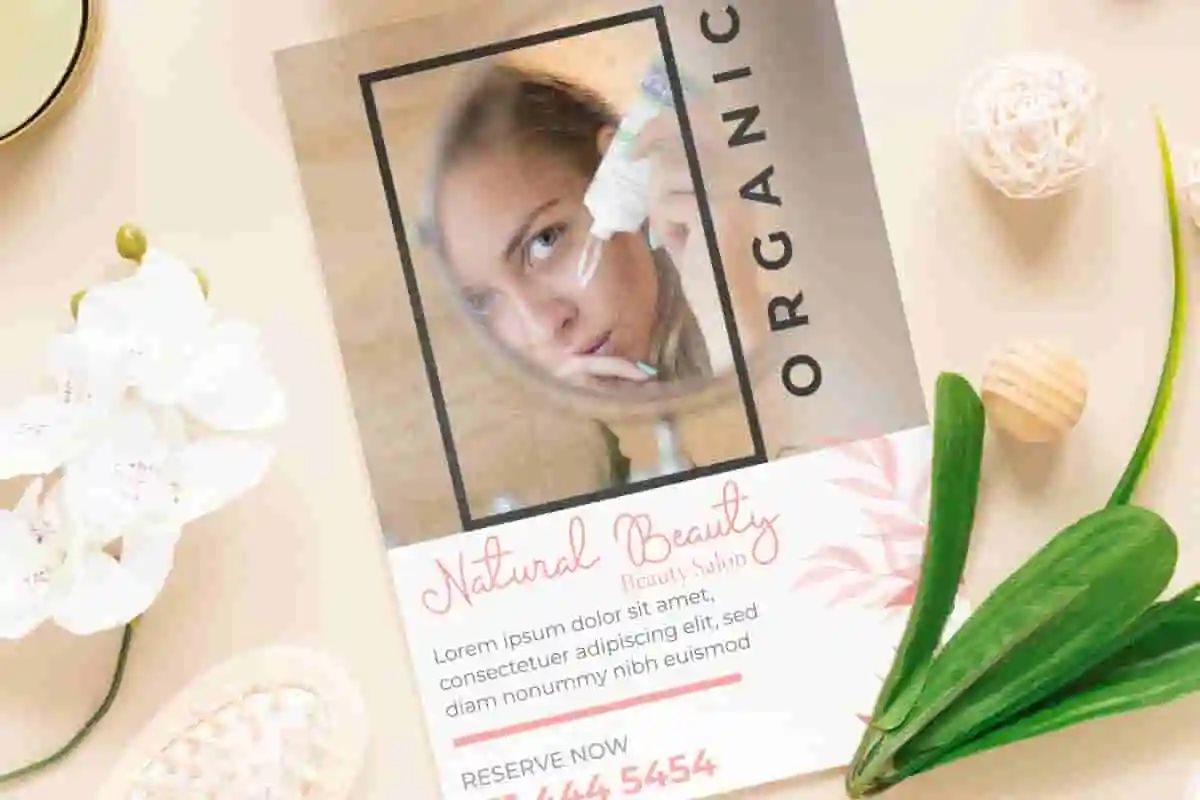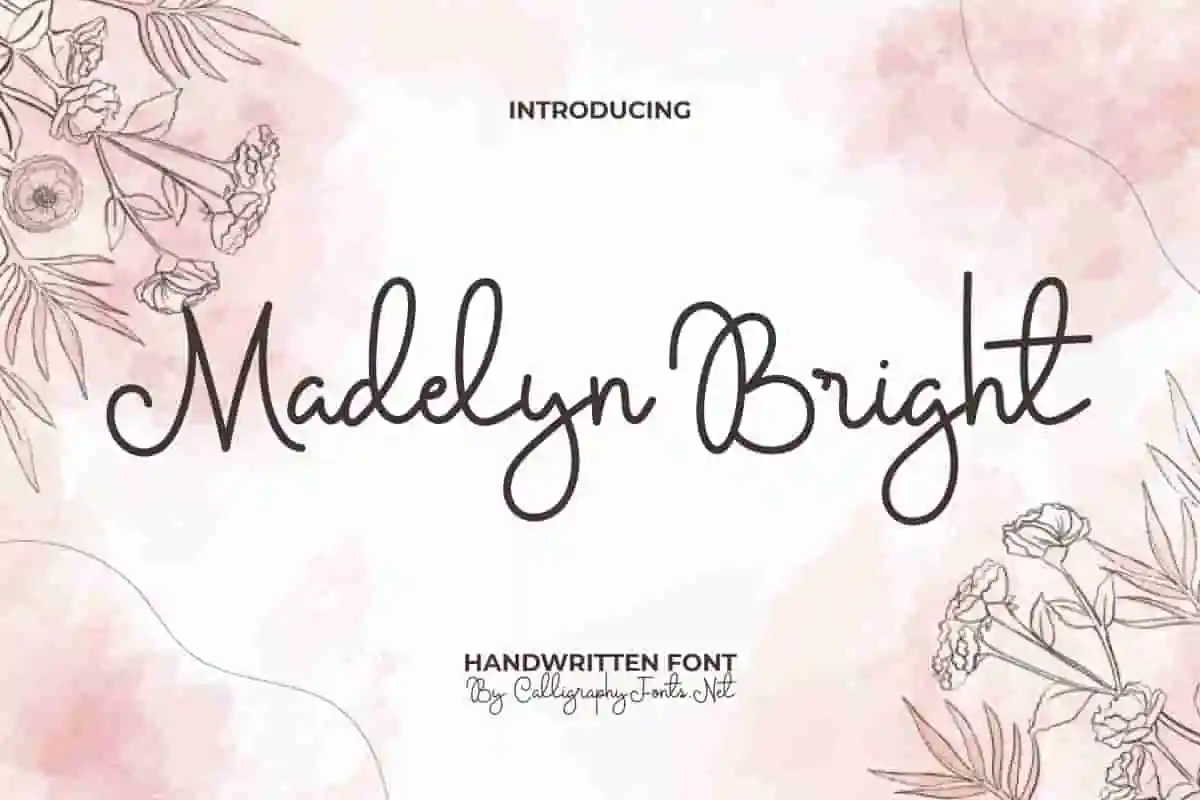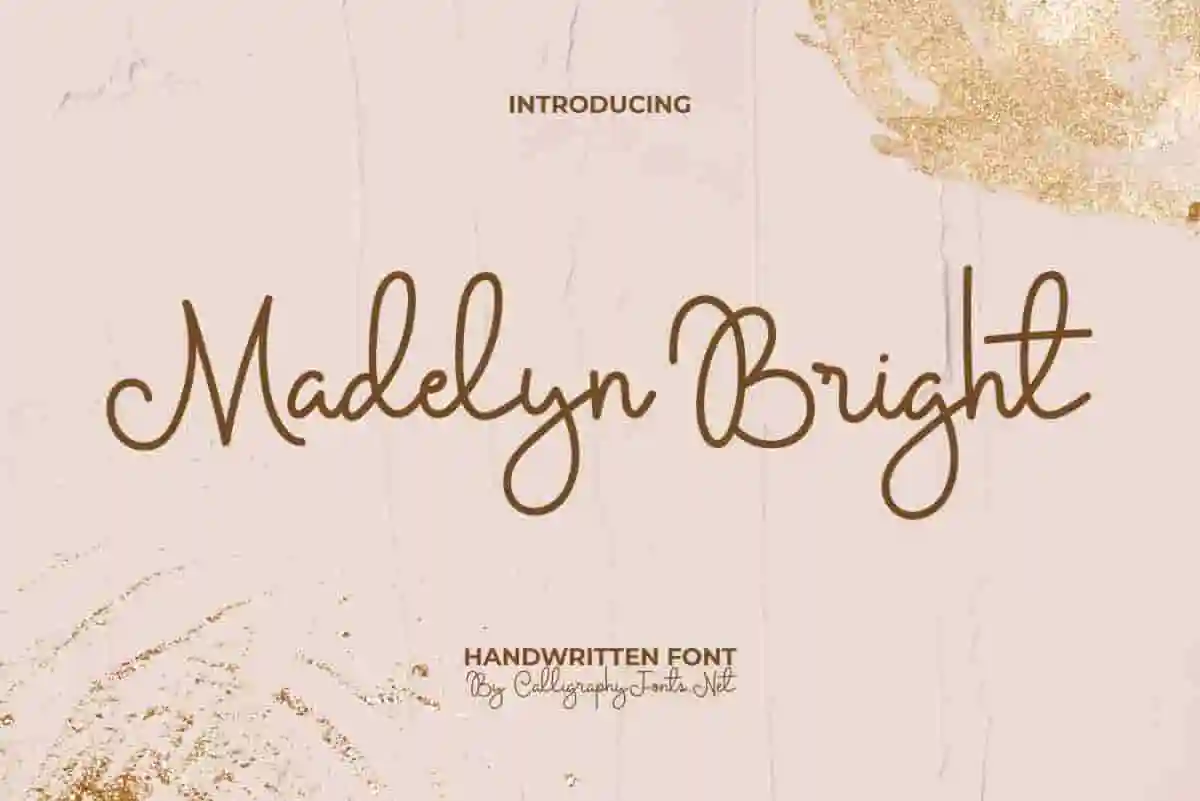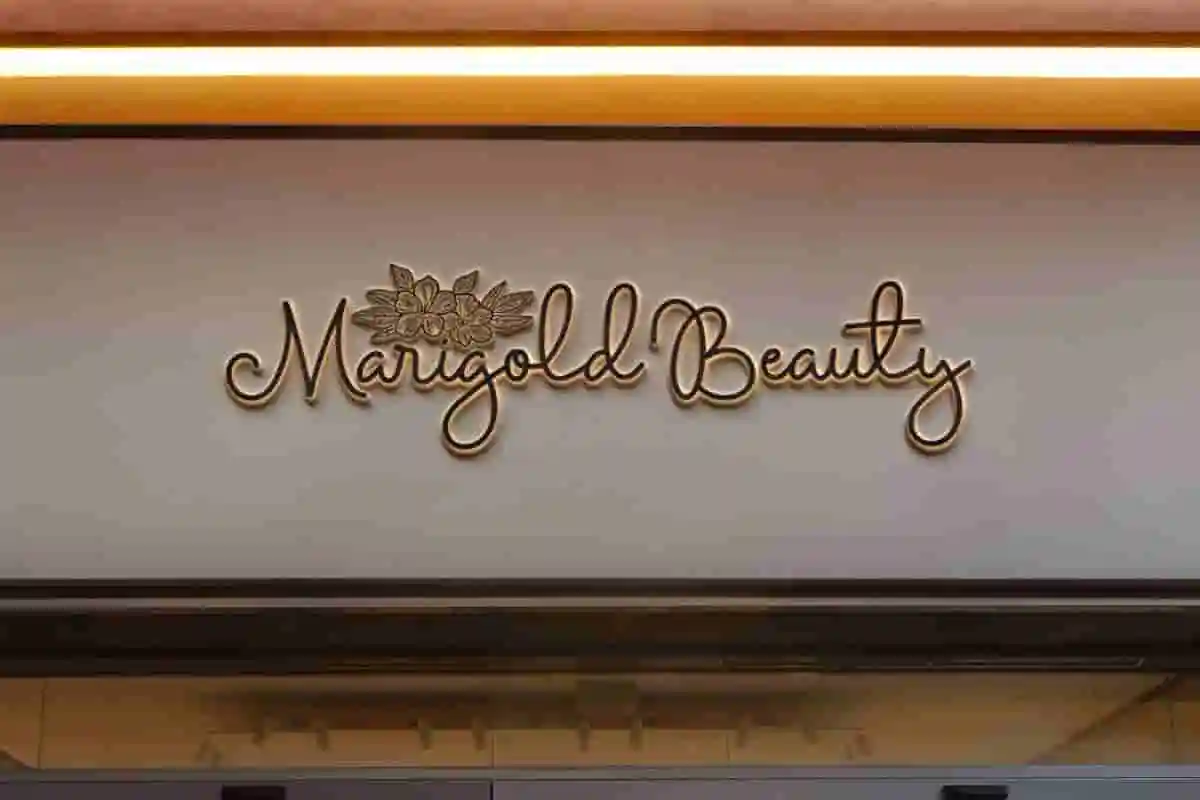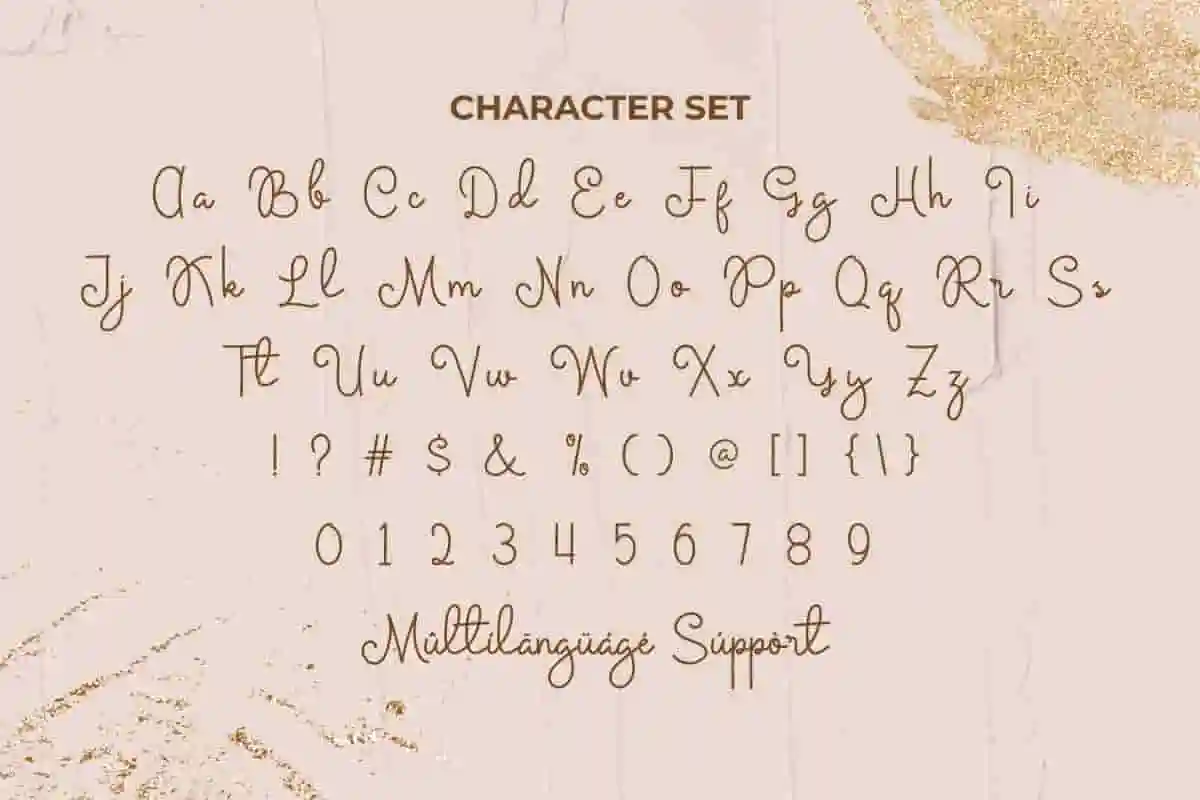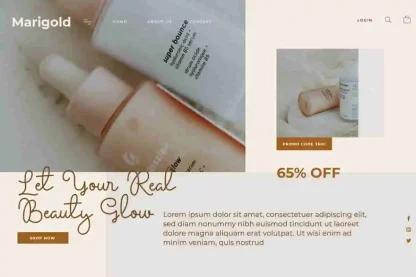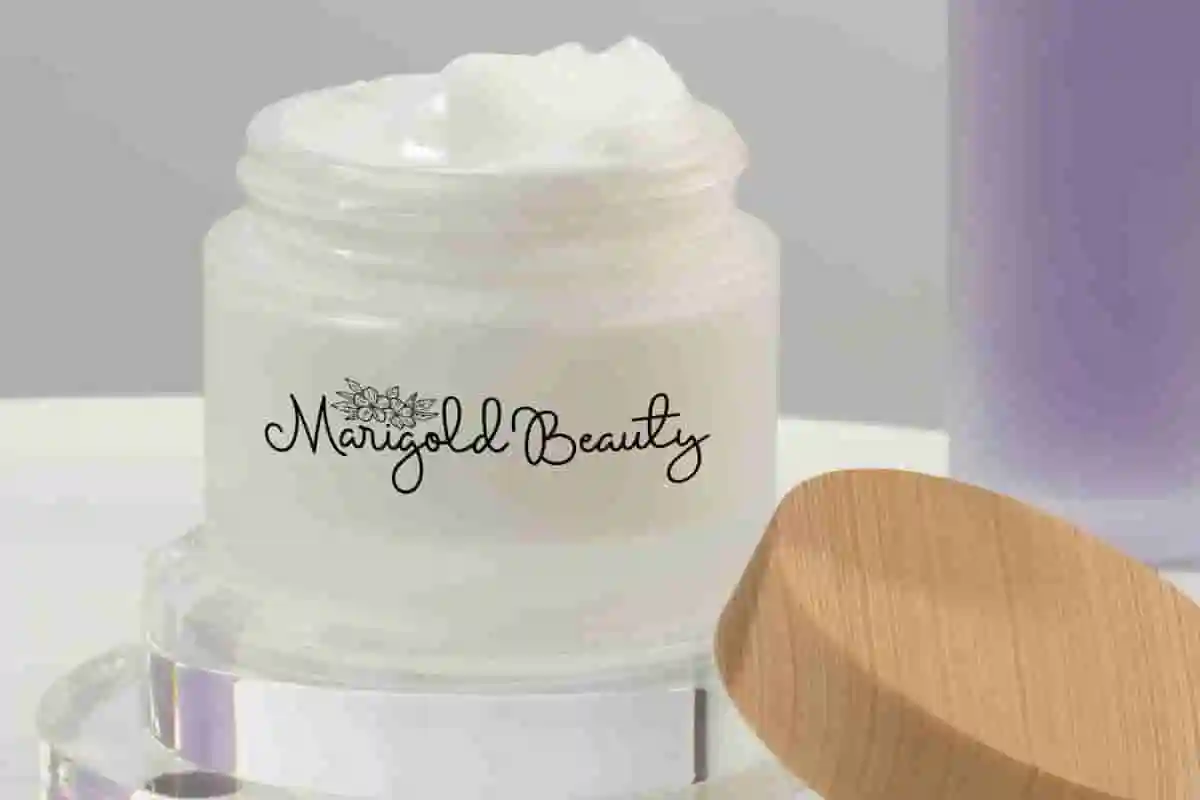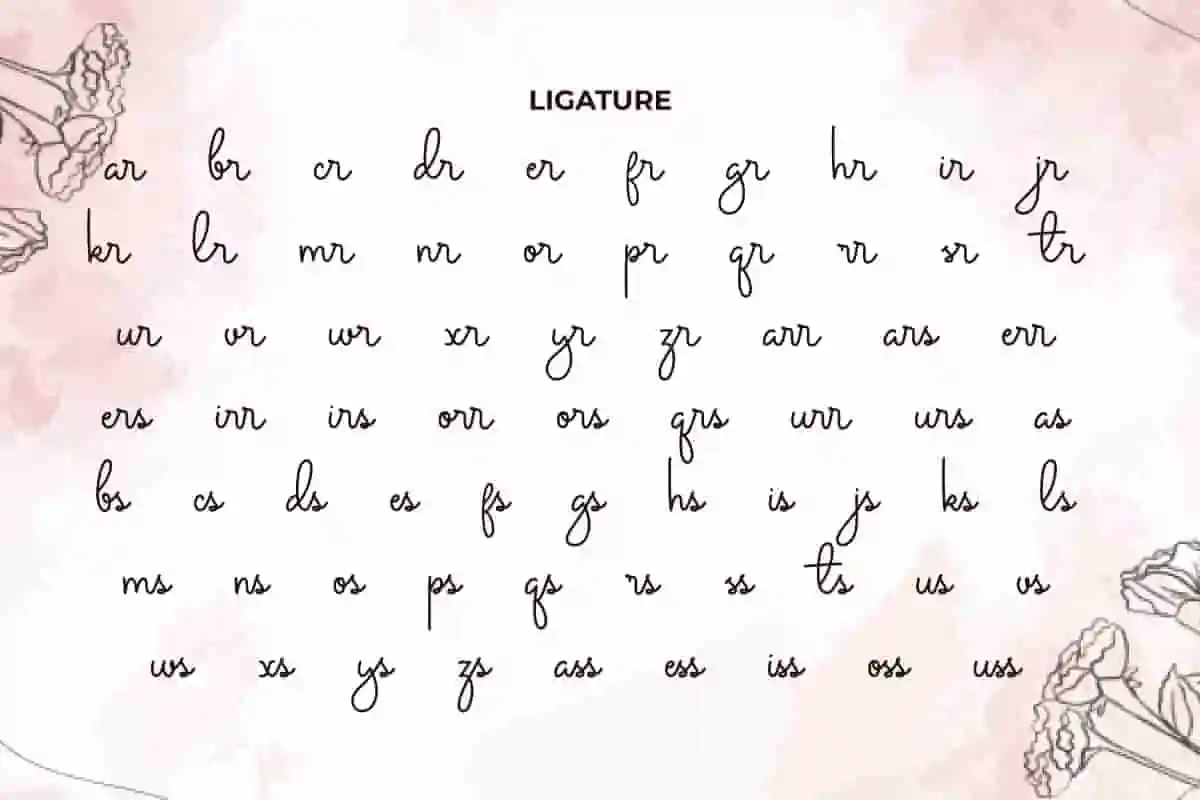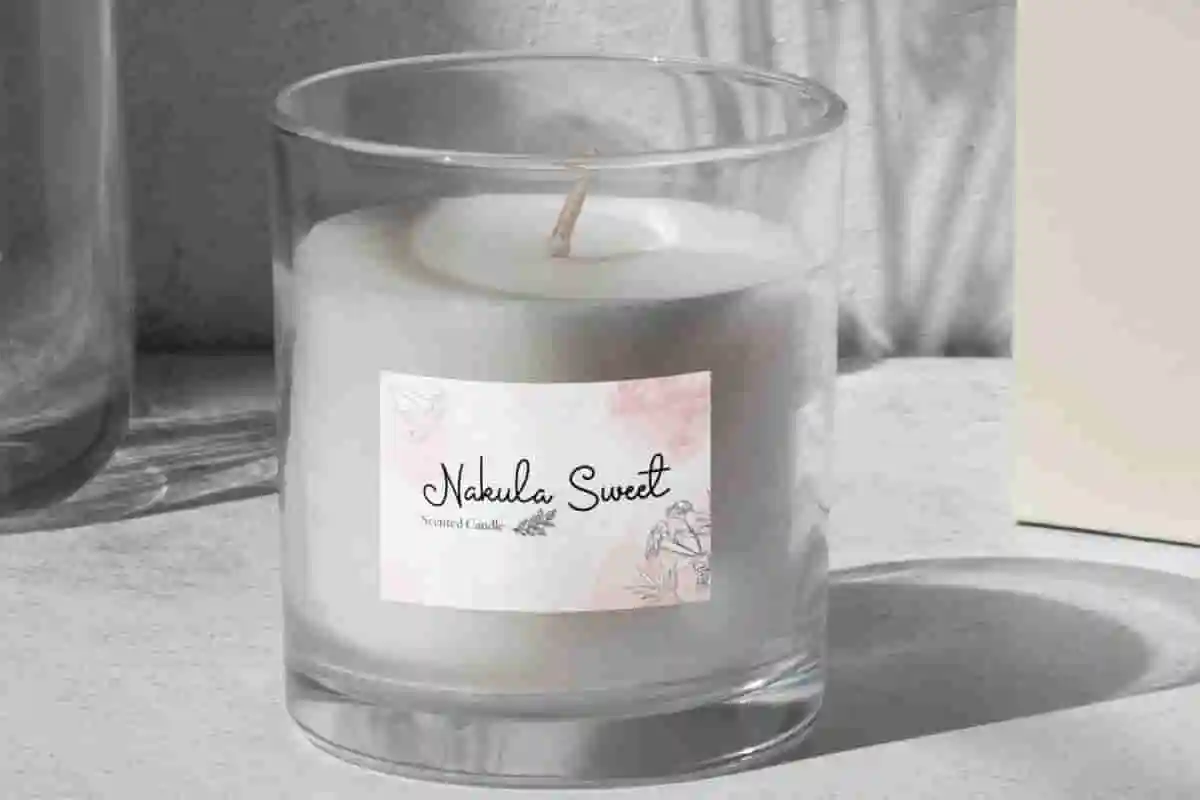
Madelyn Bright Font
Madelyn Bright Font is charming curly handwriting with with a natural monoline pen writing style. Keeps readability clear and clean.
Madelyn Bright Font is a charming curly light handwriting script font with a natural monoline pen style. This font is great for your next creative project such as blogs, brand logo, brochure, business cards, cards design, labels, product packaging, quotes, signage, stationery, sticker, title, watermarks, and many other design projects.
When it comes to creating designs that stand out, typography plays a vital role. Introducing Madelyn Bright Handwriting Font, a beautifully crafted typeface designed to bring charm, elegance, and modern sophistication to your projects. Whether you are a graphic designer, brand owner, or creative artist, this font is a must-have addition to your toolkit.
Madelyn Bright Handwriting Font is a versatile typeface that combines a graceful handwritten touch with a sleek contemporary style. Its smooth curves, refined strokes, and eye-catching details make it perfect for wedding invitations, branding projects, product packaging, social media posts, greeting cards, and editorial designs. Every letter is designed to flow naturally, giving your text a stylish yet highly readable look.
One of the key strengths of Madelyn Bright Handwriting Font is its ability to adapt. From luxury branding to playful personal projects, it carries a unique charm that fits effortlessly into various creative directions. This font also supports multiple languages and comes with alternates and ligatures to give you more flexibility in your designs.
Madelyn Bright Handwriting Font is flawlessly crafted to give a minimalist font appearance that is captivating at first glance. It seems ideal if combined with other font types. This stunning handcrafted font will be perfect for beauty clinic, cosmetic, graphic design, handicraft, photography, printing, publishing, skincare, spa salon, wedding, and other needs.
Madelyn Bright Handwriting Font comes with a complete set of Uppercase and Lowercase Basic Characters, Number, a large range of Punctuation, Symbol, and Ligatures. It has included multilingual character support ready to be used on Windows or Mac machines with a simple installation. It’s tested to work well in the Adobe Apps (Illustrator, Adobe InDesign, Adobe Photoshop) CorelDraw, and others. PUA Encode Characters means you can access all the characters easily – Fully accessible without additional design software.